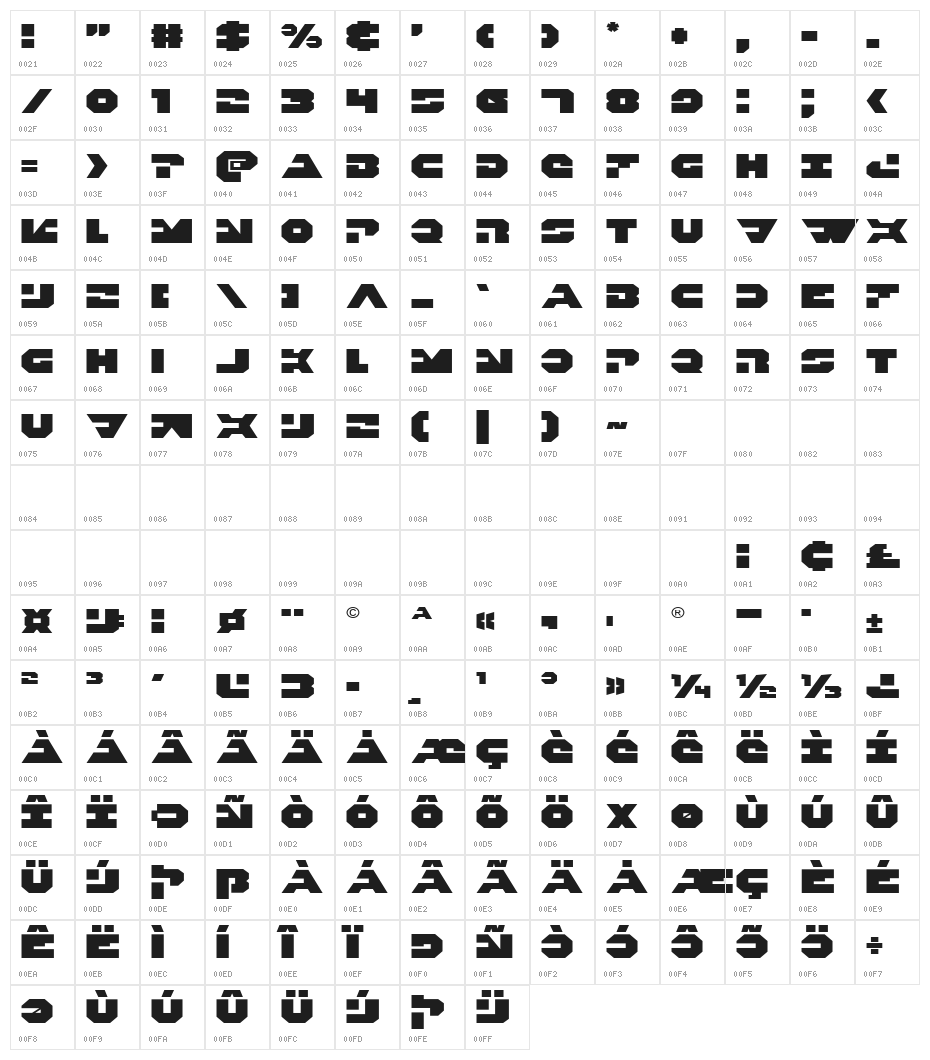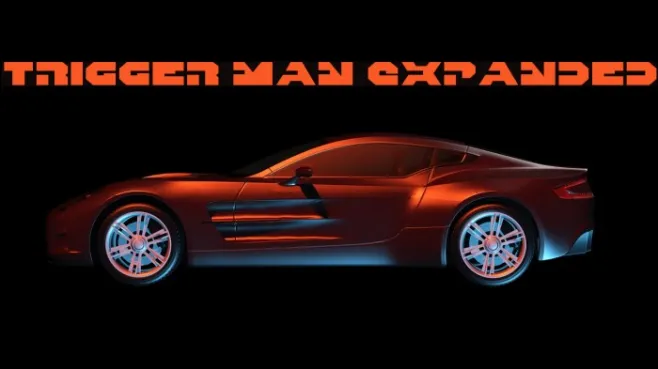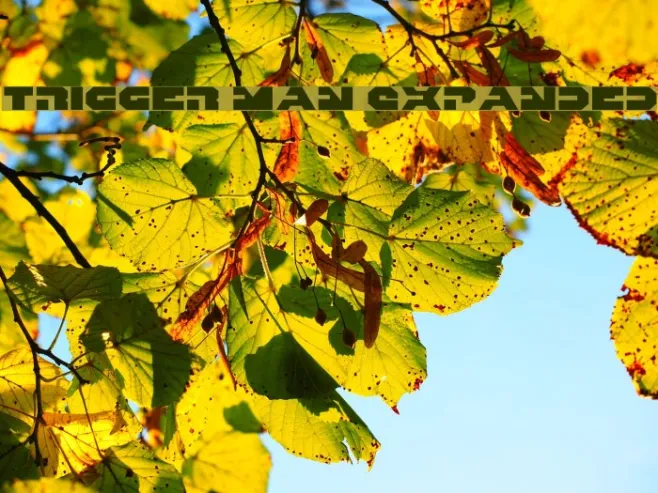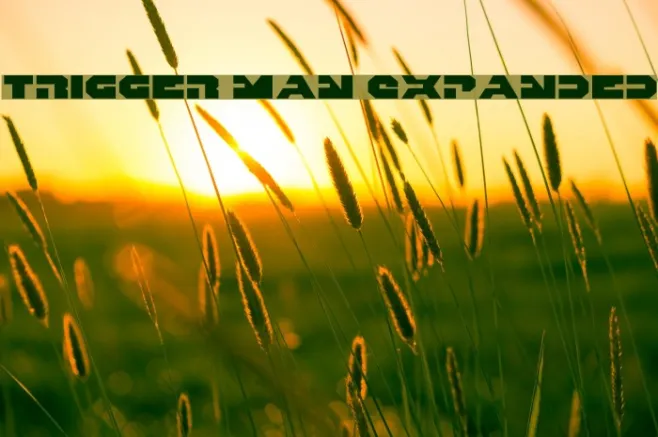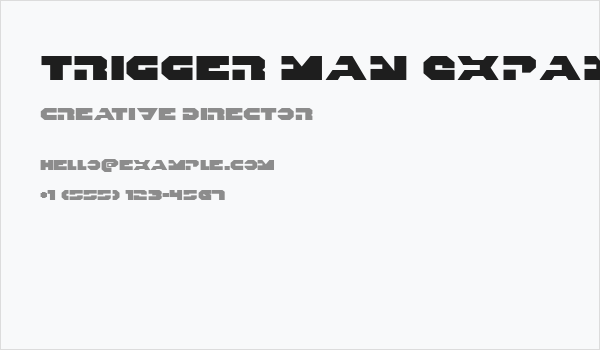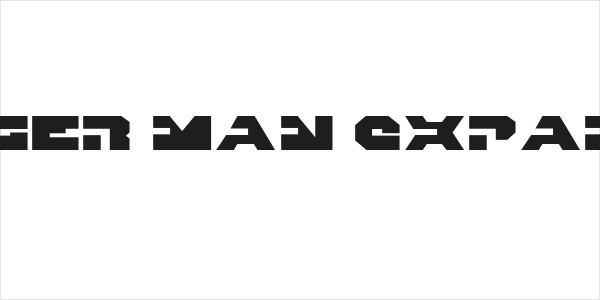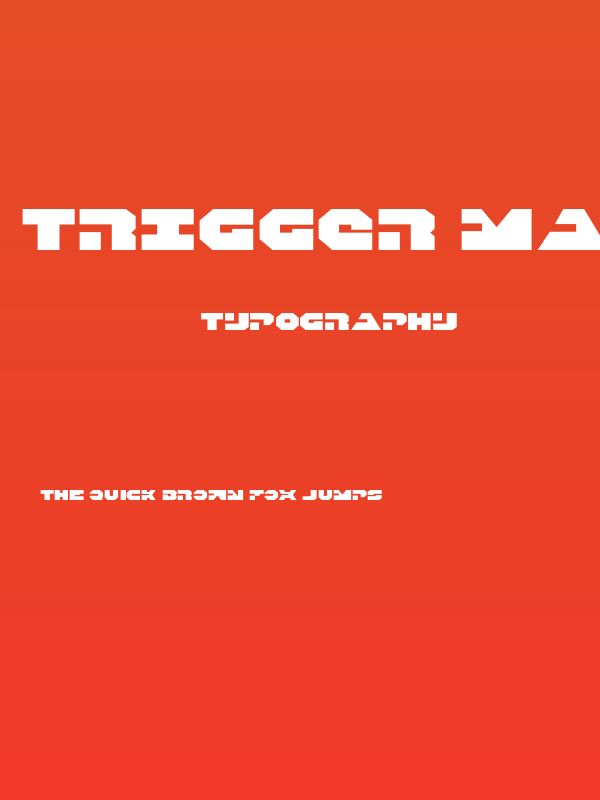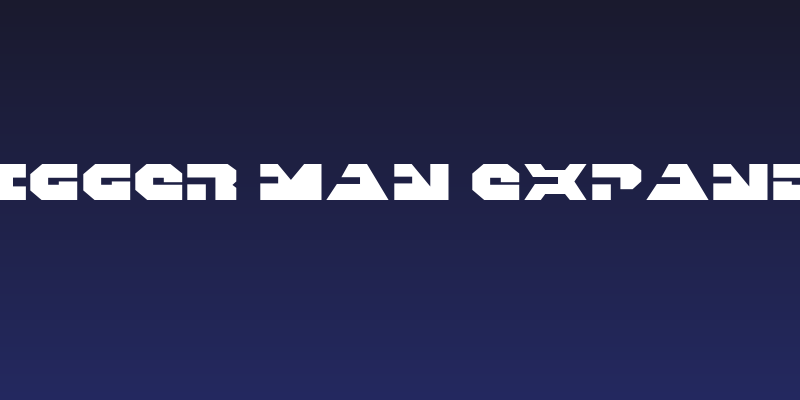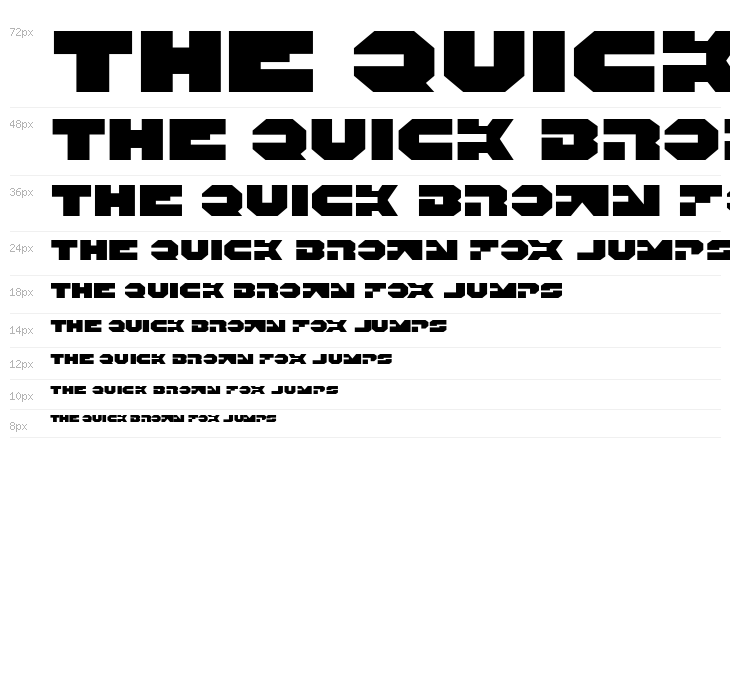
Trigger Man Expanded Font
Trigger Man Expanded Description
This font features a bold, geometric design with strong, angular lines and a futuristic aesthetic. The characters are constructed with a blocky, stencil-like appearance, giving them a distinct, industrial feel. The uppercase and lowercase letters maintain a consistent style, with sharp edges and a uniform thickness throughout. Numbers and special characters are designed to match the bold, mechanical look of the alphabet, making this font ideal for projects that require a modern, edgy vibe.
| Overall Style | Futuristic, Industrial |
| Proposed Projects | Ideal for sci-fi themed posters, video game graphics, branding for tech companies, or any project needing a modern, industrial touch. |